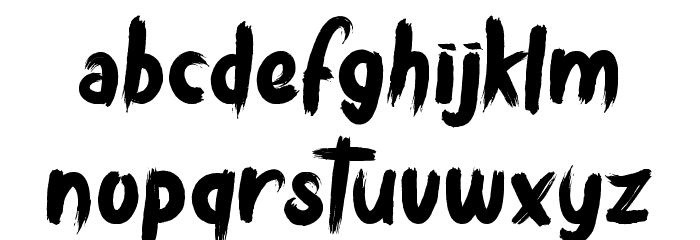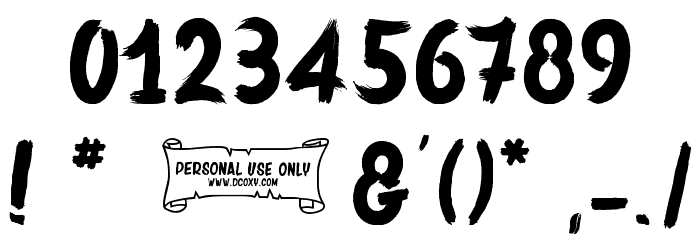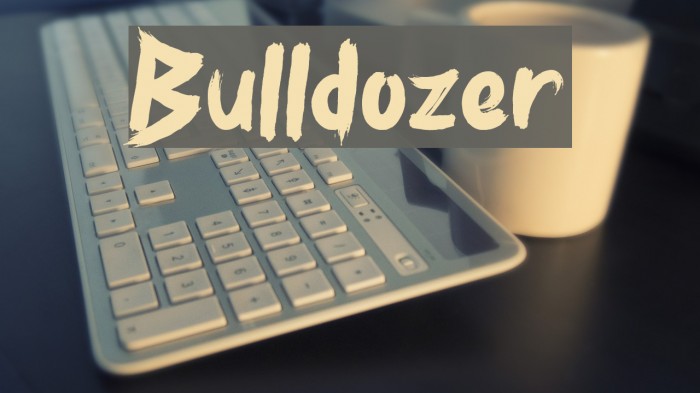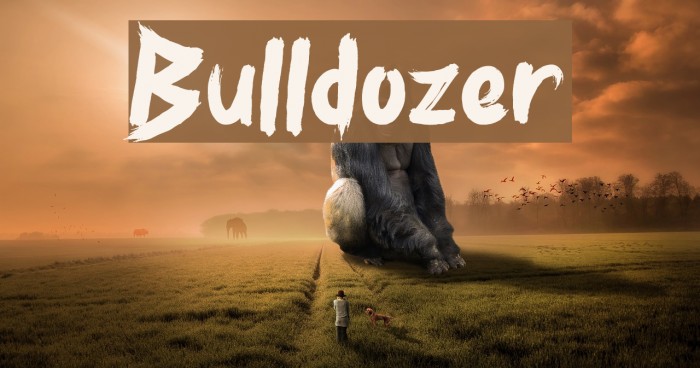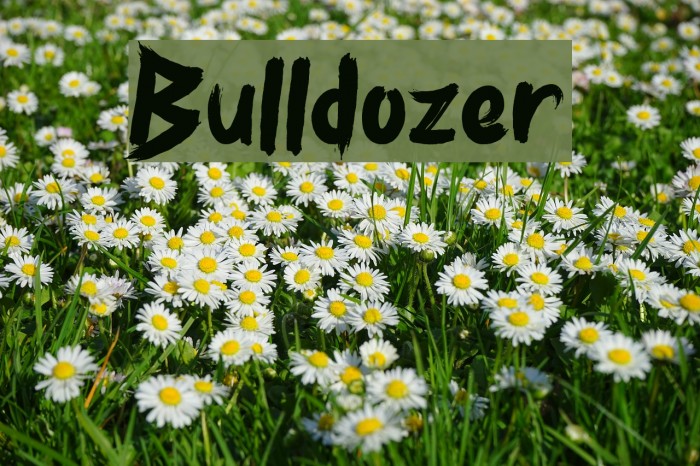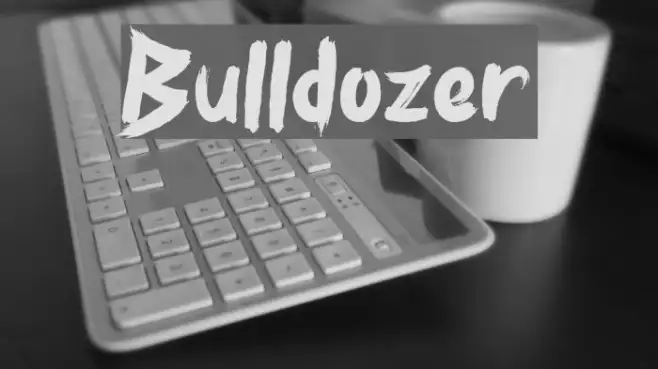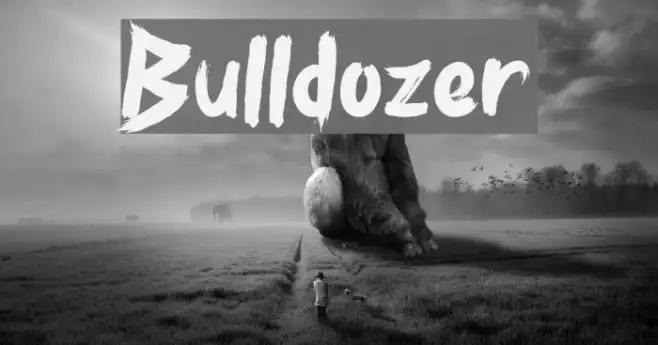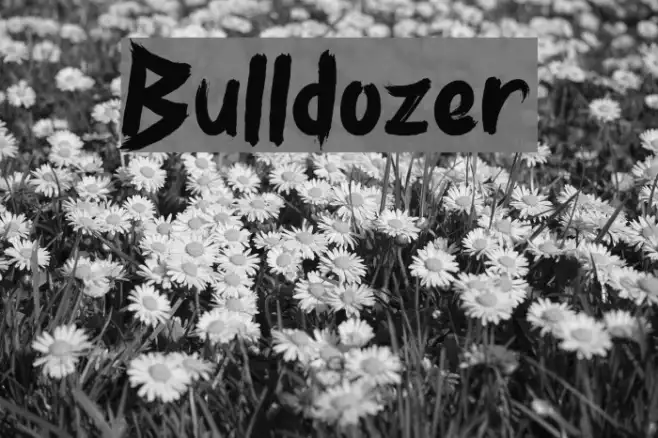
Bulldozer Font
This font features a bold and dynamic brush style, characterized by its energetic strokes and slightly irregular edges. The uppercase and lowercase letters maintain a consistent flow, giving a sense of movement and spontaneity. The numerals and special characters are crafted with the same brush-like texture, adding to the cohesive aesthetic. This font exudes a sense of creativity and boldness, making it ideal for projects that require a strong visual impact.
A bold, brush-style font with dynamic and energetic strokes.
- Proposed Projects: Ideal for posters, branding, headlines, and creative designs that require a bold and artistic touch.
- Overall Style: Modern, Artistic